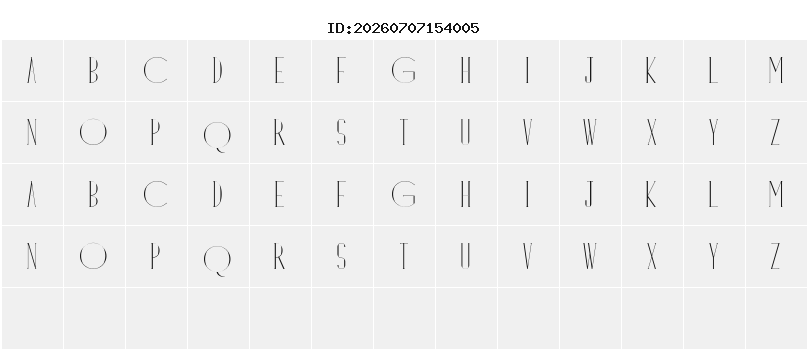
Dayang Senandung Preview
• Font Name: Dayang Senandung
• Designer: cenz qobbal
• Manufacturer: cenz qobbal
About Dayang Senandung.ttf
Dayang Senandung.ttf is a modern, elegant sans-serif font designed for ultimate readability and visual harmony. Perfect for branding, headlines, web design, and print materials.